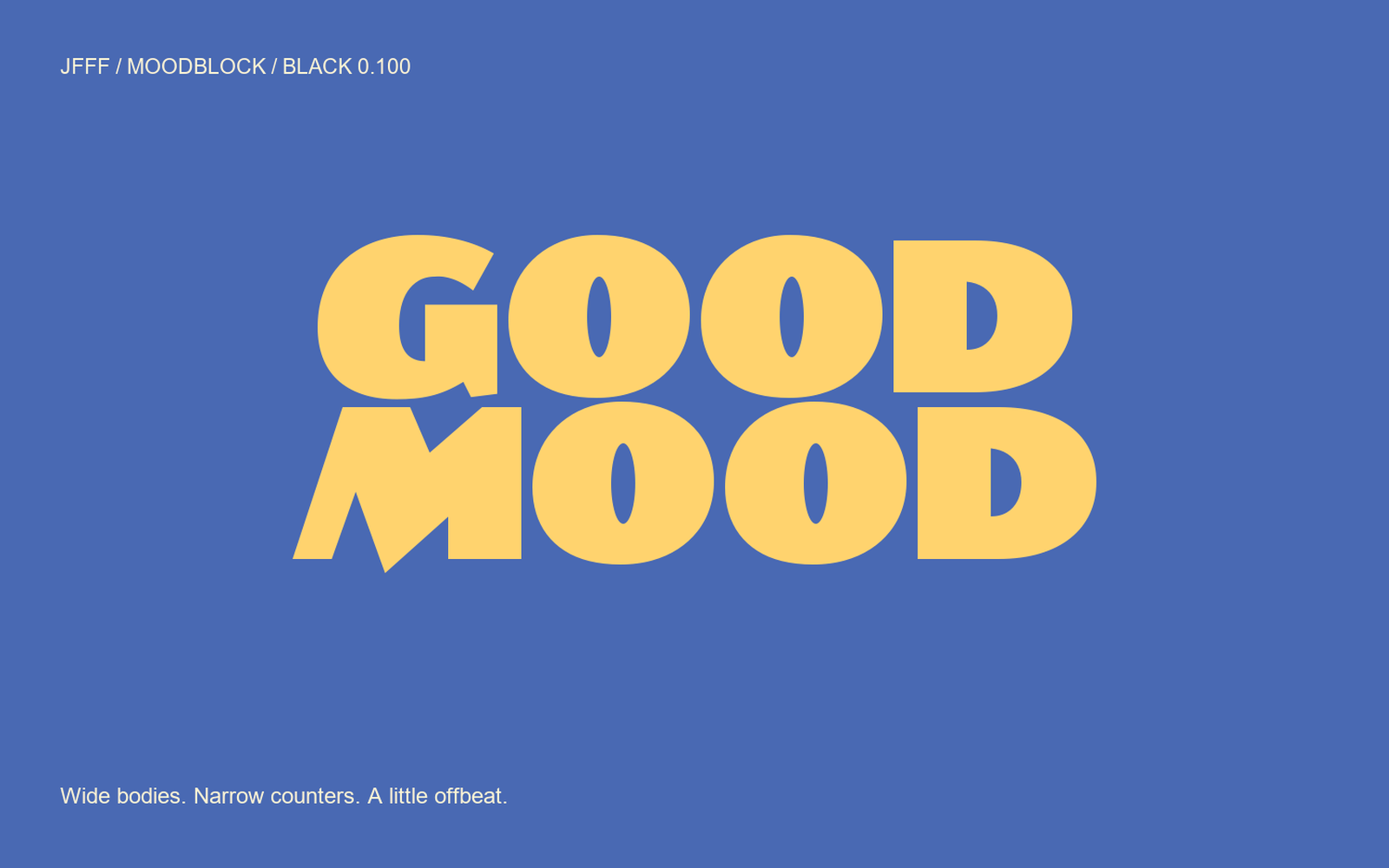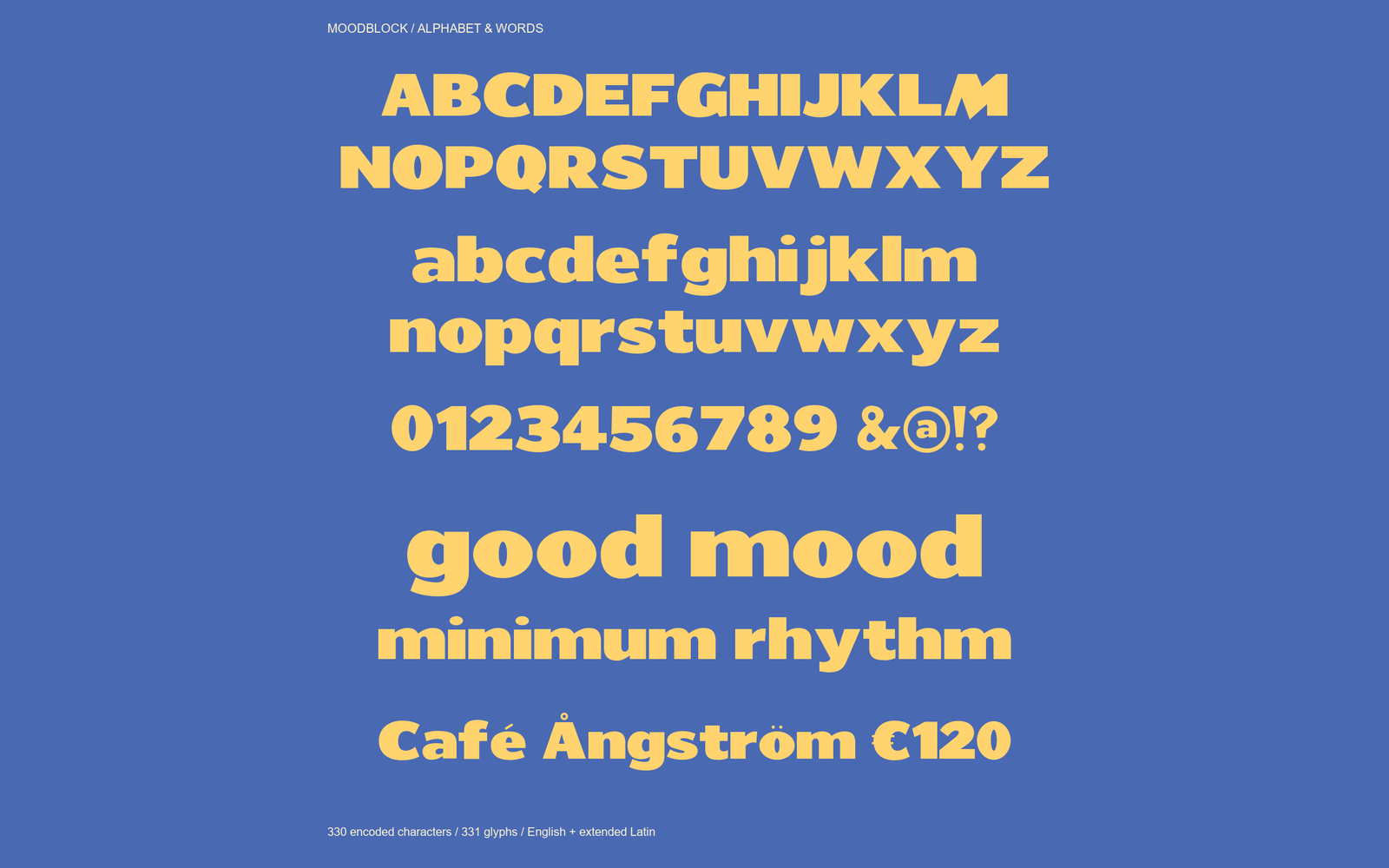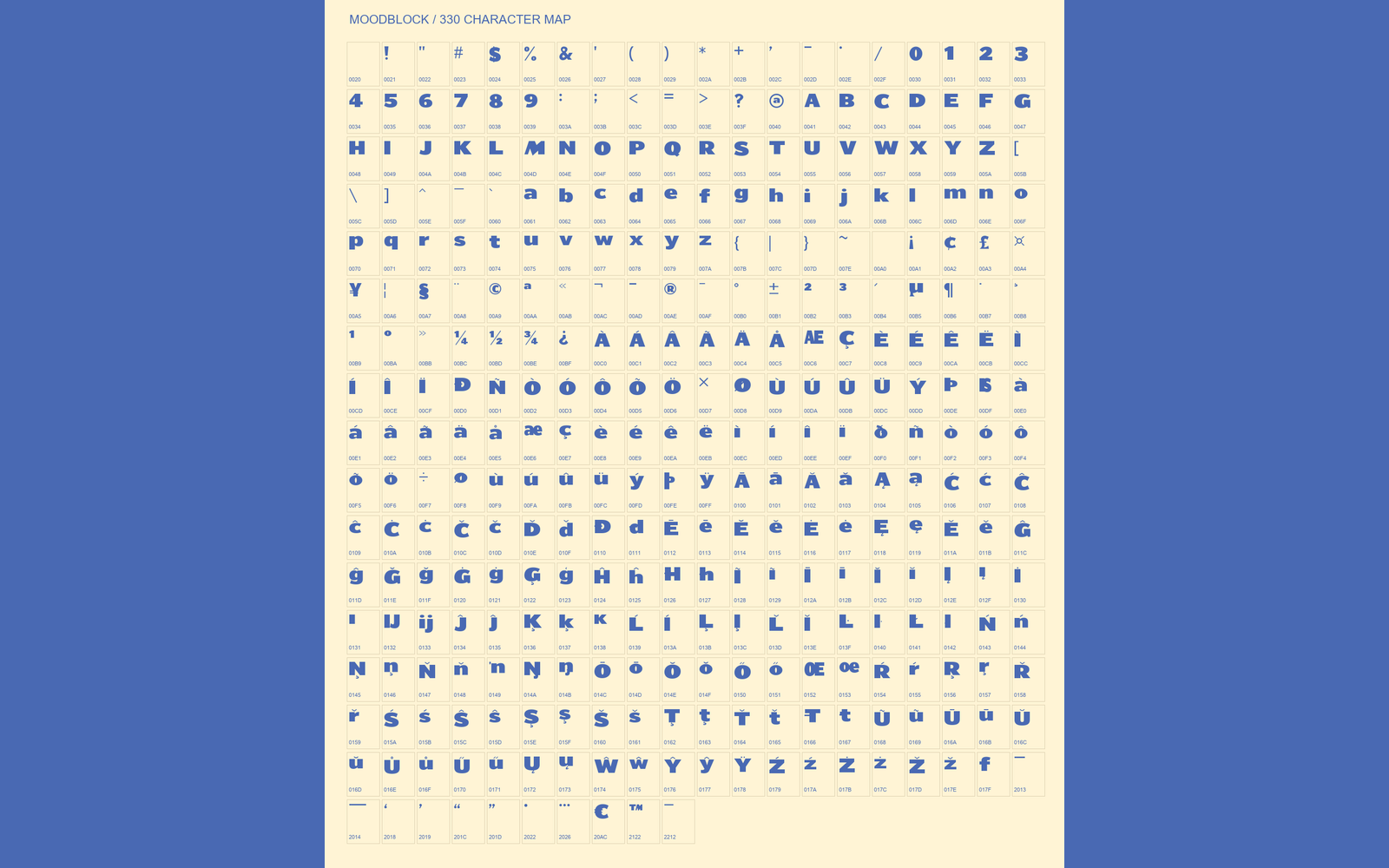
Moodblock Black: GOOD MOOD in yellow on blue.
Big shapes, good mood. Moodblock Black is an extra-heavy display sans with wide rounded bodies, narrow vertical counters and an asymmetric M. Created for short headlines, posters and packaging. Includes uppercase, lowercase, figures and punctuation: 330 encoded characters / 331 glyphs across Basic Latin, Latin-1, Latin Extended-A and selected symbols. Black style, version 0.100. Start at 48 px. Hangul and independent combining marks are not included. Released under the SIL Open Font License 1.1.